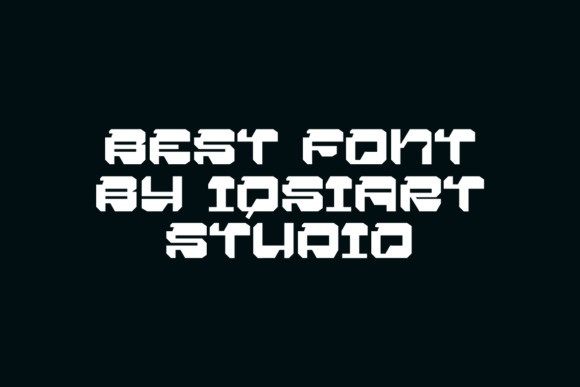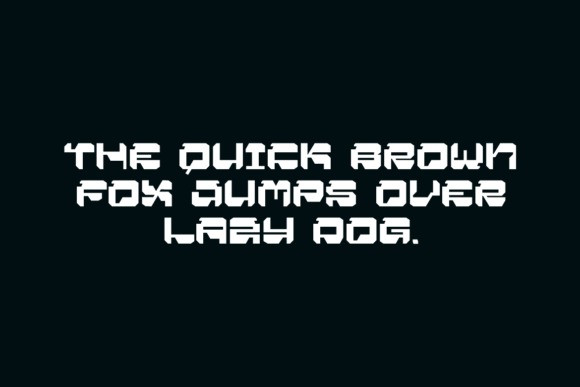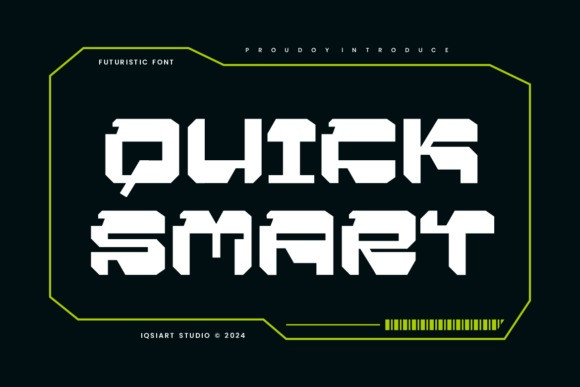
Quick Smart Futuristic Font
Quick Smart Futuristic Font is a sharp, futuristic display font engineered for high-tech branding, sci-fi designs, and cutting-edge interfaces. With angular shapes, strong geometric lines, and a digital pulse, this font is built to stand out in modern tech spaces. Perfect for gaming, esports, robotics, or cyberpunk projects.